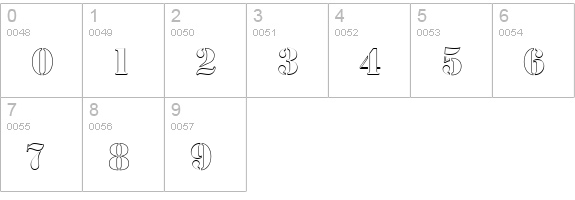
Stencil MN Outline Font Details
Stencil MN Outline font is a bold and eye-catching typeface that is perfect for making a statement in your designs. With its clean lines and distinct stencil style, this font is sure to grab attention and create a modern aesthetic. The outline version adds an extra layer of visual interest, giving your text a unique and dynamic look. What's even better is that Stencil MN Outline font is available for free download at FontsMarket.com. This means you can easily access this striking typeface and use it in your projects without any cost. Whether you're creating posters, logos, or any other design work, Stencil MN Outline font will help you stand out and make a memorable impression. Download it now and elevate your designs with this versatile and stylish font.